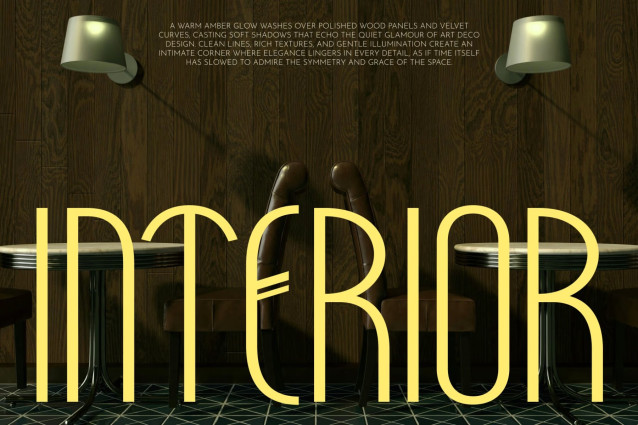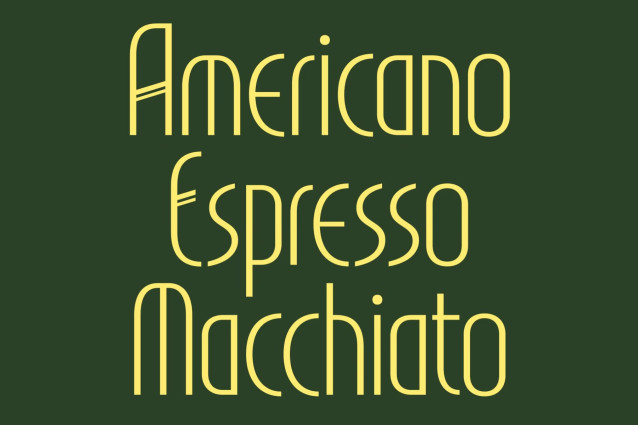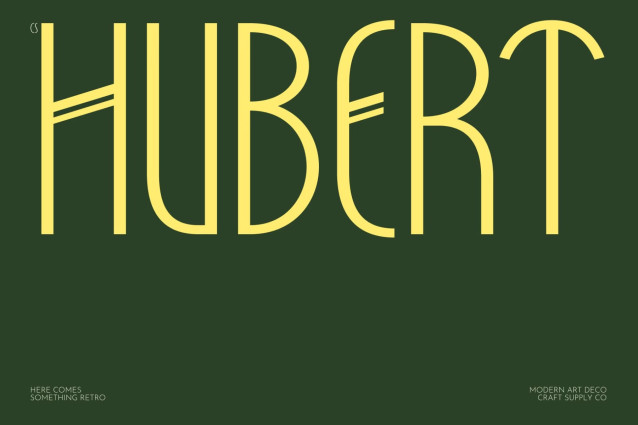
CS Hubert – Art Deco Font
CS Hubert – Art Deco Sans Serif with Timeless Sophistication
Display Sans Serif with Art Deco Elegance
This is a sophisticated display sans serif font inspired by the timeless beauty of Art Deco design. Featuring slim proportions, geometric precision, and refined detailing, this typeface captures the elegance of classic luxury while maintaining a clean contemporary appearance. It is crafted for designers who seek typography that feels stylish, graceful, and visually distinguished.
Condensed Forms with Striking Character
The condensed structure gives this font a sleek and commanding presence, allowing text to appear elegant and space-efficient at the same time. Its tall proportions and sharp geometry create a dramatic rhythm across headlines and titles, making every composition feel polished and intentional. The striking character shapes ensure strong visual impact without losing readability.
Clean Lines with Geometric Precision
This font combines smooth clean lines with carefully balanced geometric forms, creating a sophisticated visual harmony. The Art Deco influence adds a sense of glamour and timelessness, while the modern execution keeps the font fresh and versatile for contemporary applications. This balance gives the typeface a luxurious and professional personality.